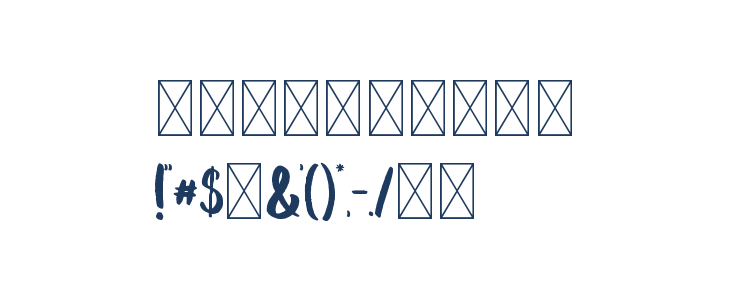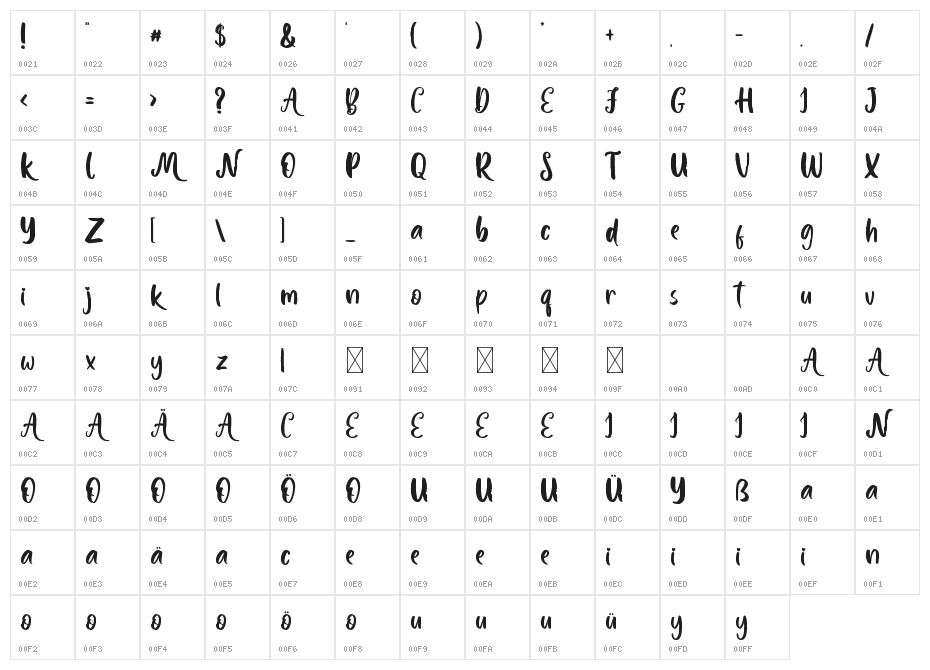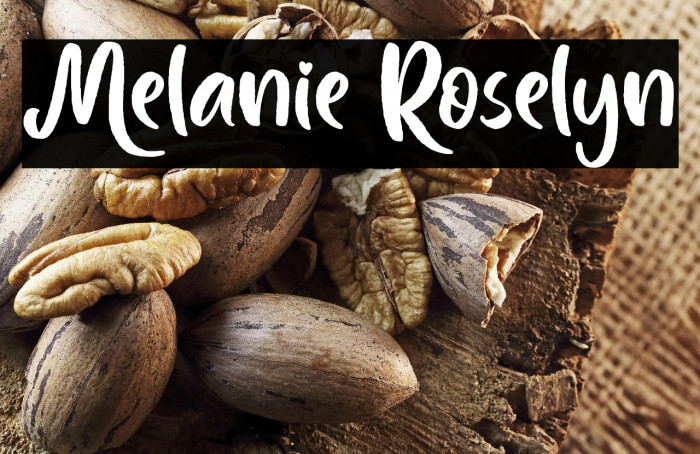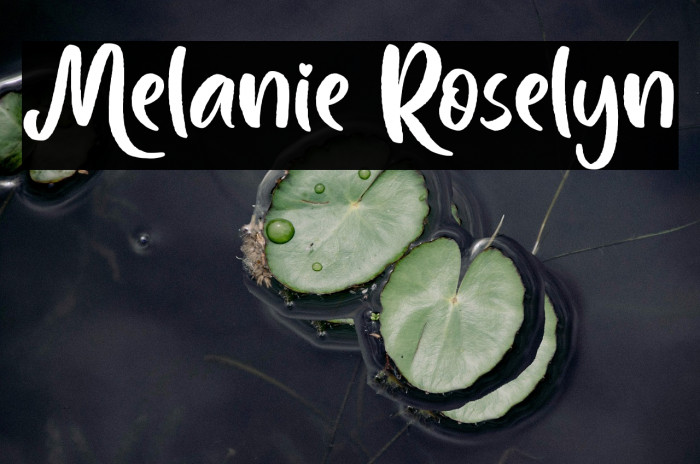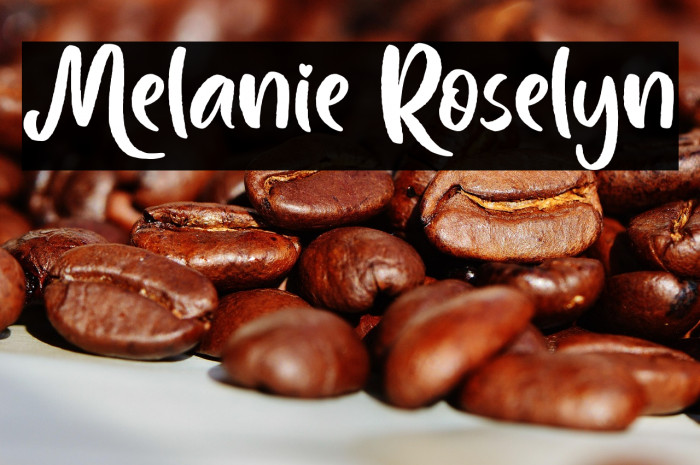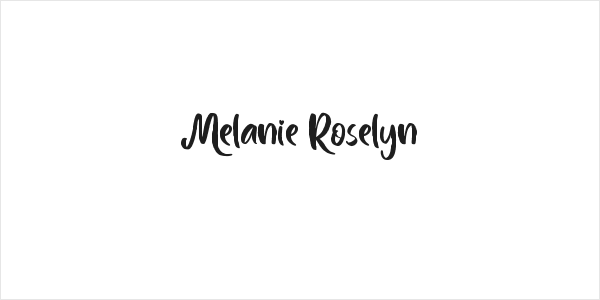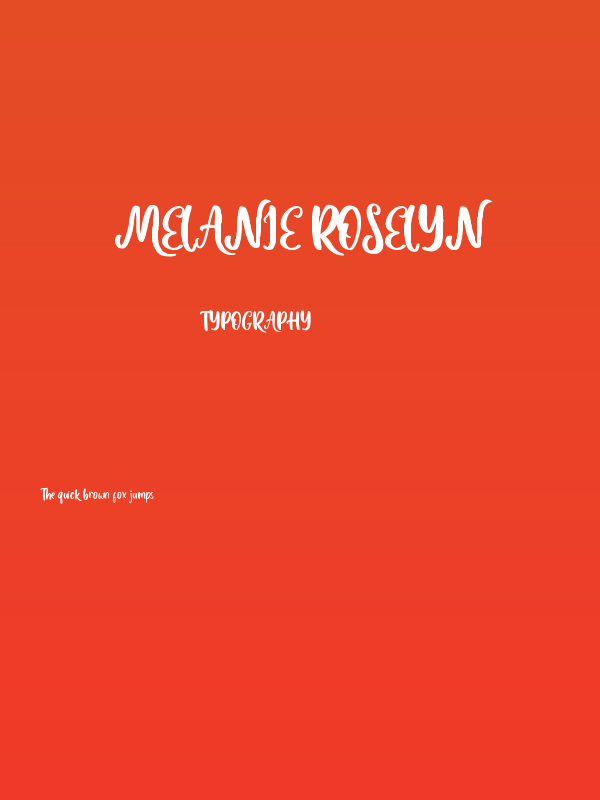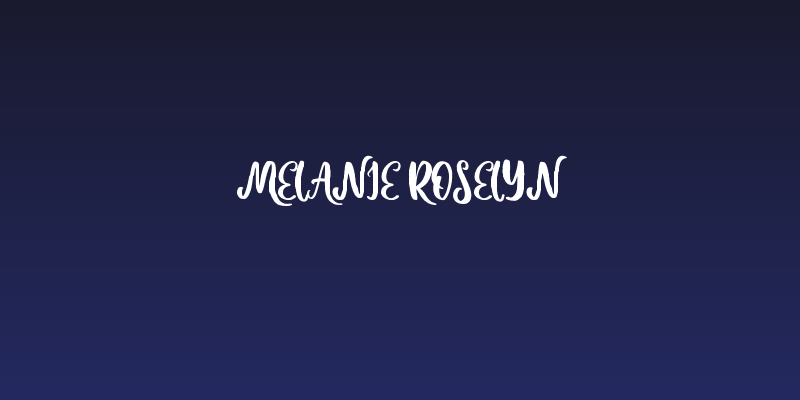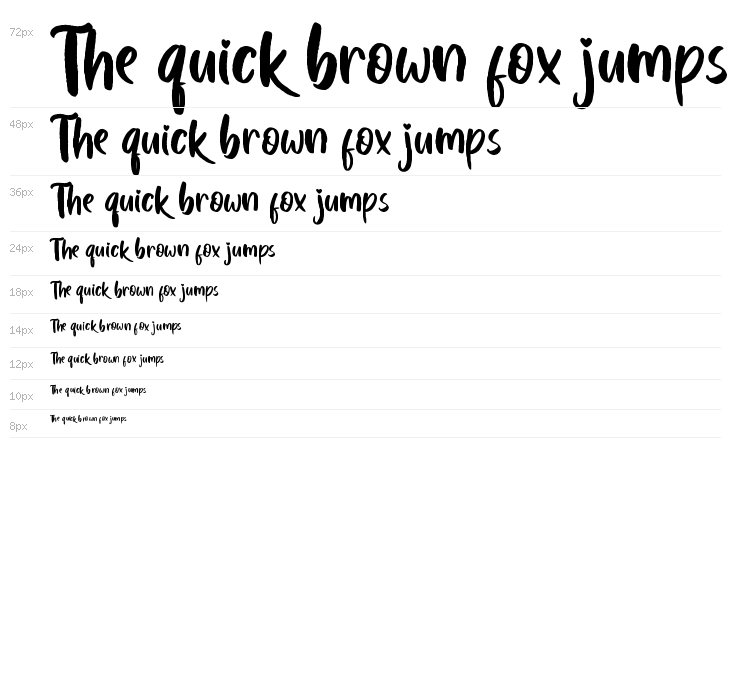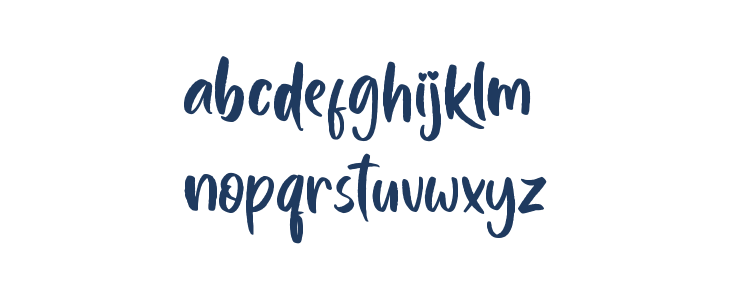
Melanie Roselyn Font
Melanie Roselyn Description
This font features a bold and expressive handwritten style, characterized by its fluid and dynamic strokes. The uppercase letters are particularly prominent, with a playful yet elegant flair, making them stand out. The lowercase letters maintain a consistent flow, complementing the uppercase with their slightly more subdued appearance. The numbers and special characters are crafted with the same attention to detail, ensuring a cohesive look throughout. This font's unique charm lies in its ability to convey a sense of creativity and personality, making it ideal for projects that require a personal touch.
| Proposed Projects | Ideal for greeting cards, invitations, branding, and social media graphics. |